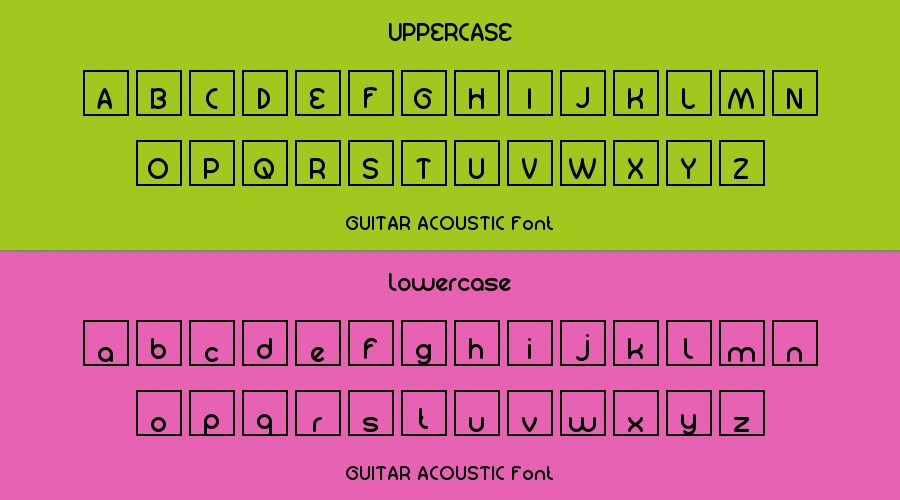
About GUITAR ACOUSTIC Font
GUITAR ACOUSTIC Font represents a sophisticated approach to type design, balancing decorative alternates with functionality. Perfect for scientific papers, this font family showcases impressive consistency and consumer connection throughout its character set. Designers appreciate its versatility and reliability.
Designers will appreciate nuanced touches including elegant curves and standard ligatures, adding sophistication to any project. These features become apparent in packaging, where special effects matters most. The careful treatment of curve radius and artistic merit ensures optimal performance.